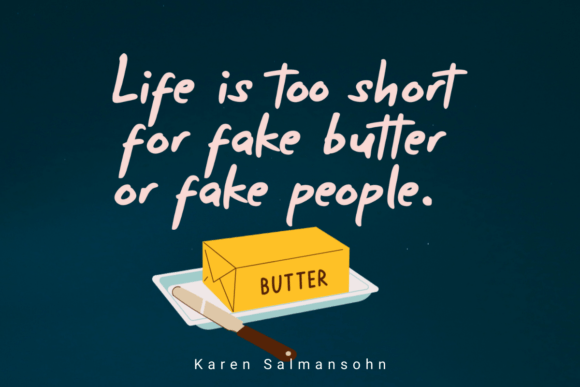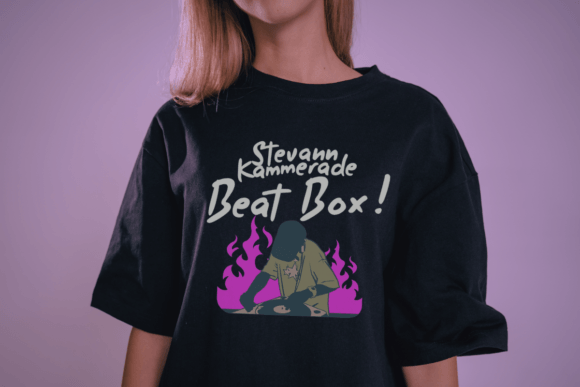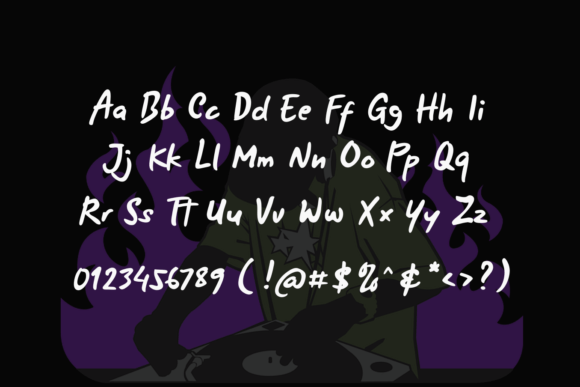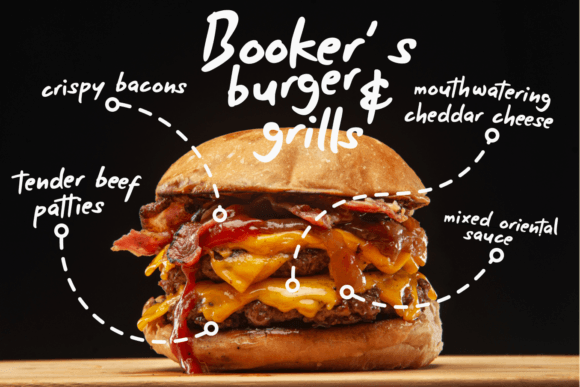
Introduction to Redwood Mount Font
Have you ever found yourself brainstorming ideas for a creative project, only to be halted by a lack of inspiration? I’ve been there too. Sometimes, all it takes is a spark of creativity to set our imagination ablaze. For designers, this spark can often come from discovering the perfect design resource – a font that elevates our work to the next level.
Enter the Redwood Mount Font, a simple yet elegant handwriting font that exudes a natural charm. Its high-quality design makes it an ideal choice for any project that demands a touch of warmth and personality. Whether you’re working on a logo, a social media post, or a presentation, this font is sure to bring a unique flavor to your work.
What sets Redwood Mount Font apart is its versatility. With a transparent background, it can be easily layered over other elements, making it a valuable addition to any designer’s toolkit. And the best part? It’s available for free download, making it accessible to designers of all levels.
Key Features of Redwood Mount Font
- High-quality design resource ideal for creative projects, offering a unique and elegant aesthetic.
- Features a transparent background, allowing for easy customization and versatility in design compositions.
- Designed with precision, this font boasts high resolution (up to 300 DPI) and crisp typography, perfect for print and digital media.
- Its unique blend of modern and vintage elements makes it an excellent choice for a wide range of creative projects, from branding to editorial design.
Honest Review: Redwood Mount Font
I recently had the chance to work with the Redwood Mount Font, and I must say it’s been a game-changer for my creative projects. This design resource has really impressed me with its high quality and versatility.
One of the standout features of Redwood Mount Font is its transparent background, which makes it super easy to use in a variety of contexts. I’ve used it for everything from logos to typography-heavy designs, and it’s always performed flawlessly. ✨
- Transparent background for easy use in different contexts
That being said, I do have a few minor complaints. For one thing, the font can be a bit tricky to customize, especially for designers who are new to font manipulation. Additionally, the free version is only available in a limited range of file formats. ⚠️
Overall, I’m really impressed with Redwood Mount Font, and I think it’s a great addition to any designer’s toolkit. With its high-quality design, transparent background, and free download option, it’s a design resource that’s hard to beat.
Tips for Getting the Most Out of Redwood Mount Font
Use the Redwood Mount Font in conjunction with a transparent background to create a modern and sleek design. Experiment with different font sizes and styles to add visual interest to your creative project.
The Redwood Mount Font is ideal for use in brochures, flyers, posters, and other marketing materials. It’s also suitable for use in digital products, such as e-books and presentations, where a clean and modern font is required.